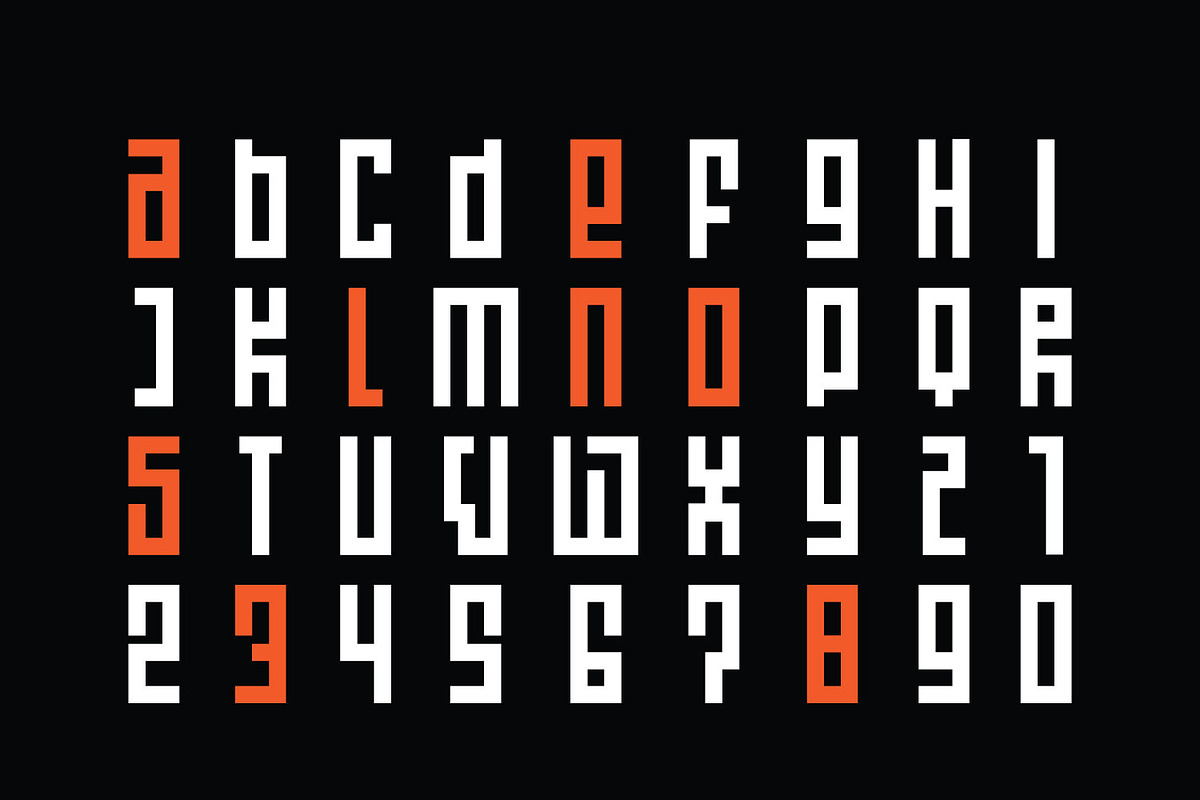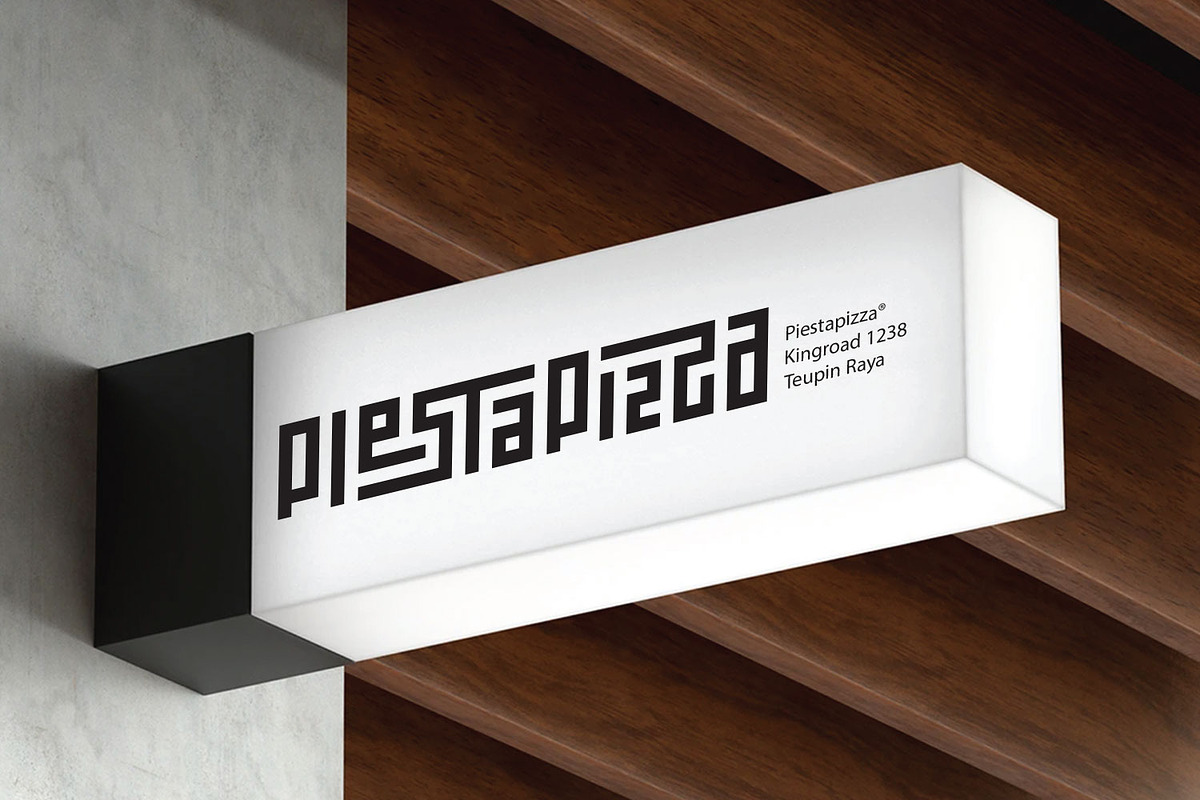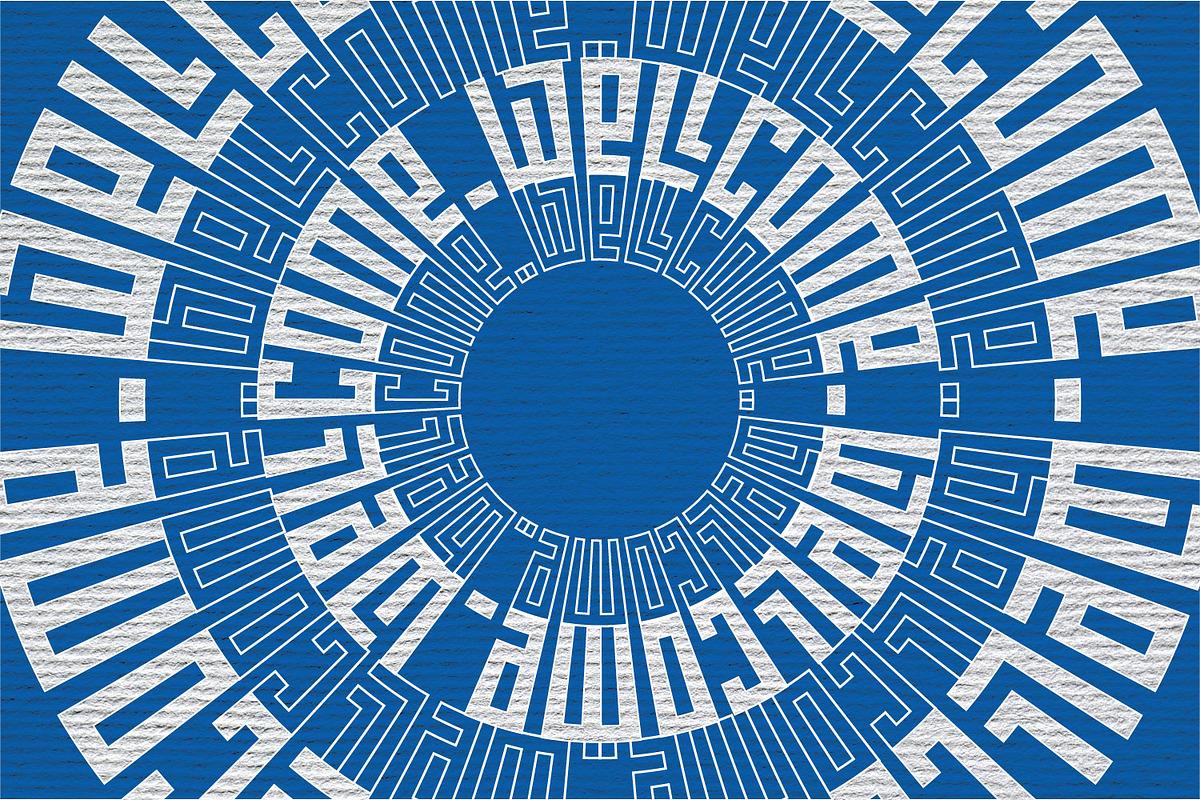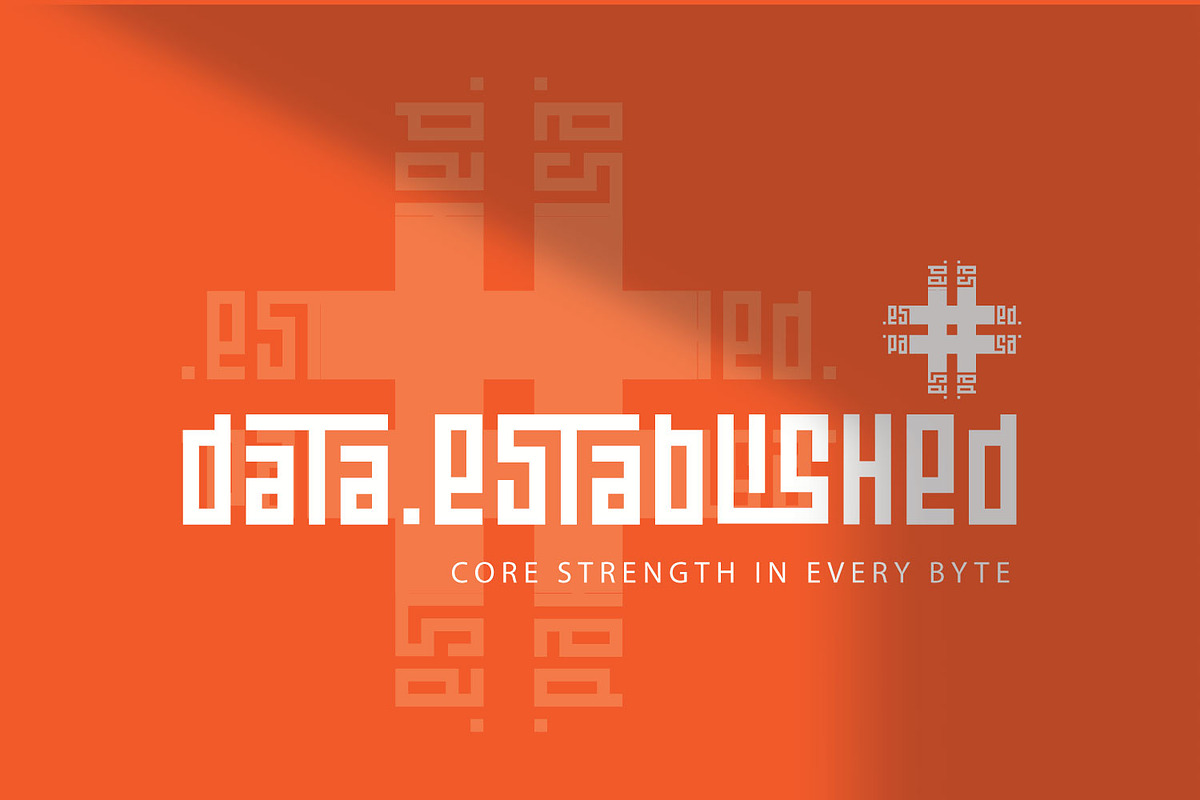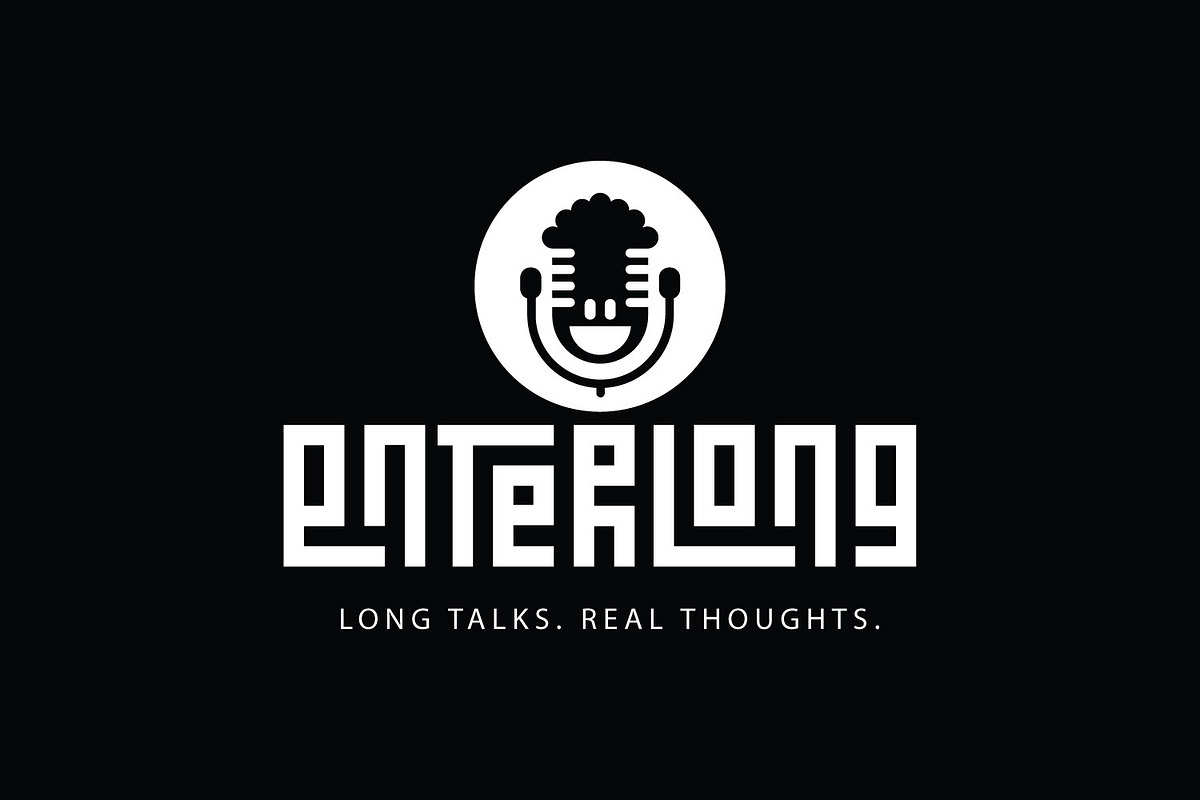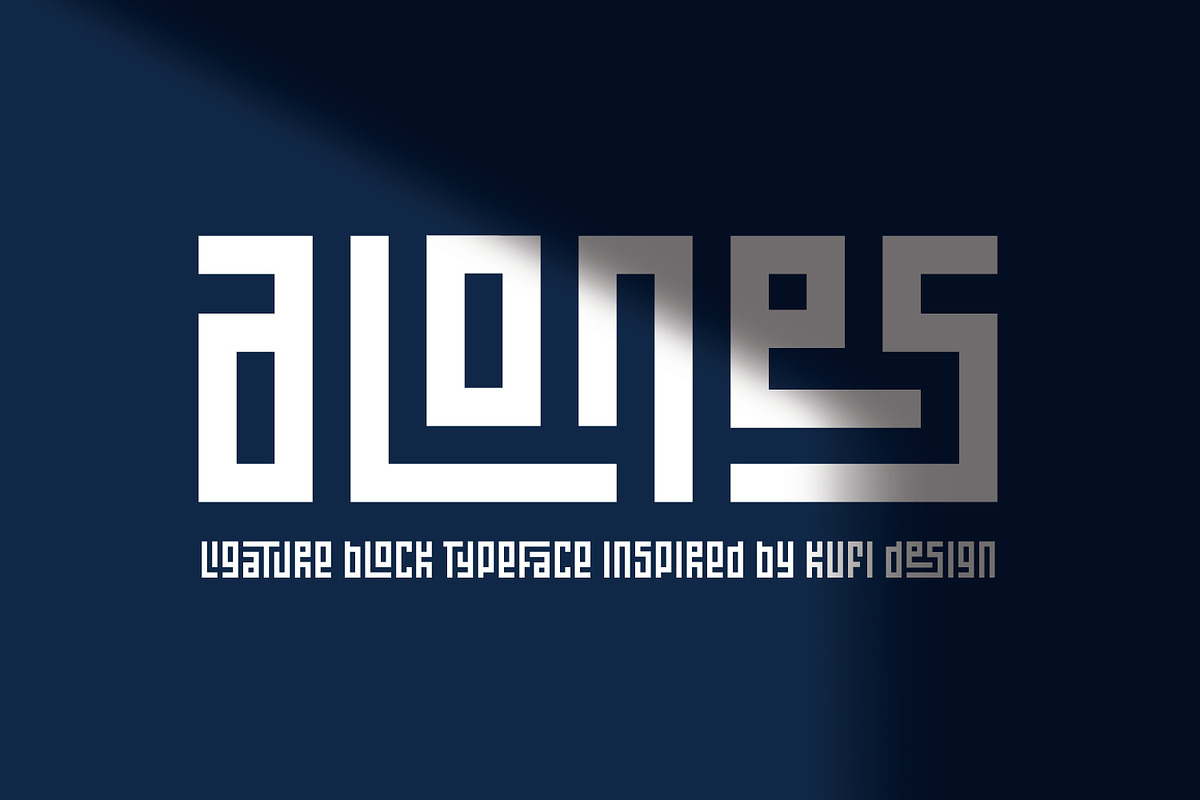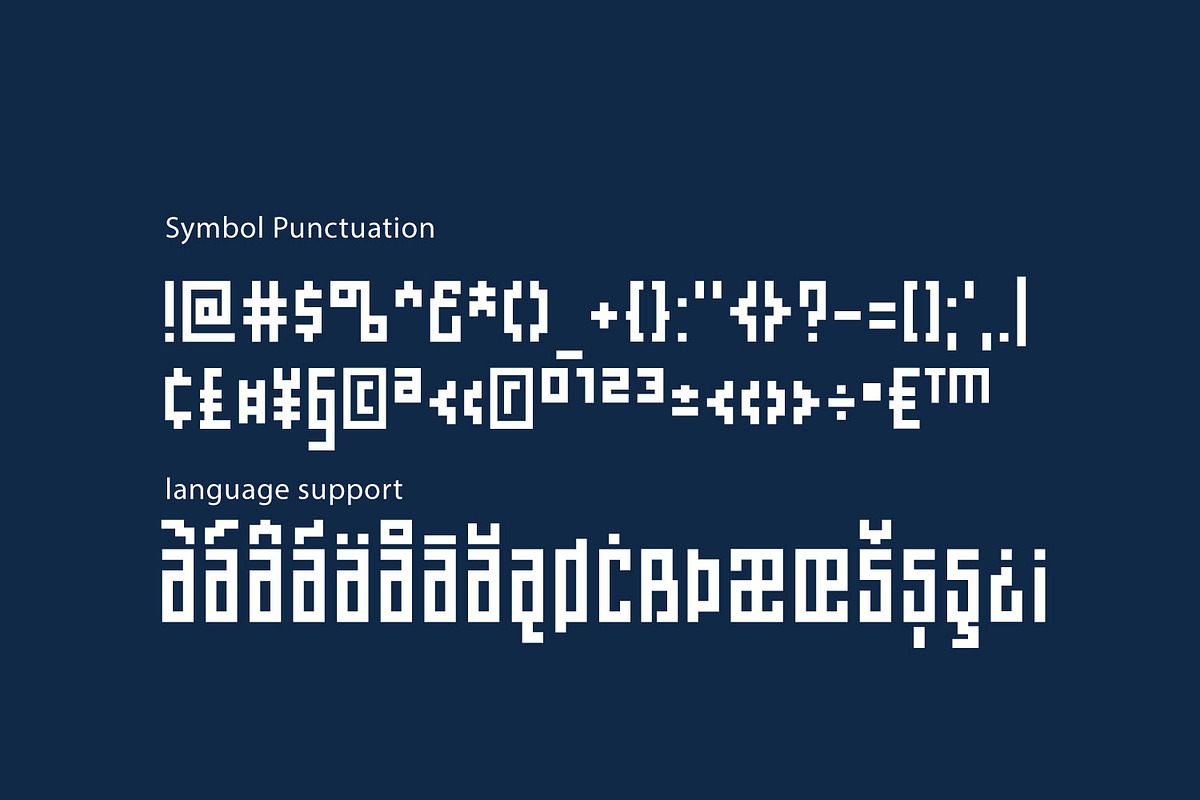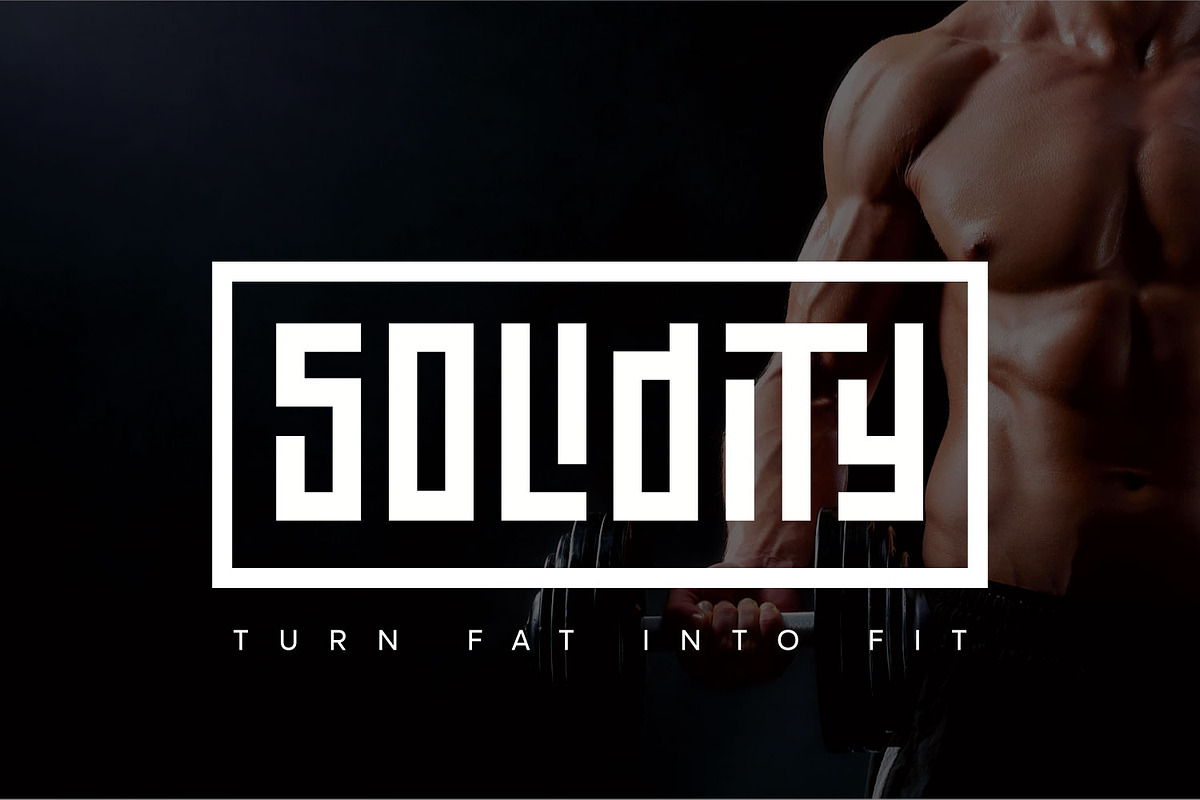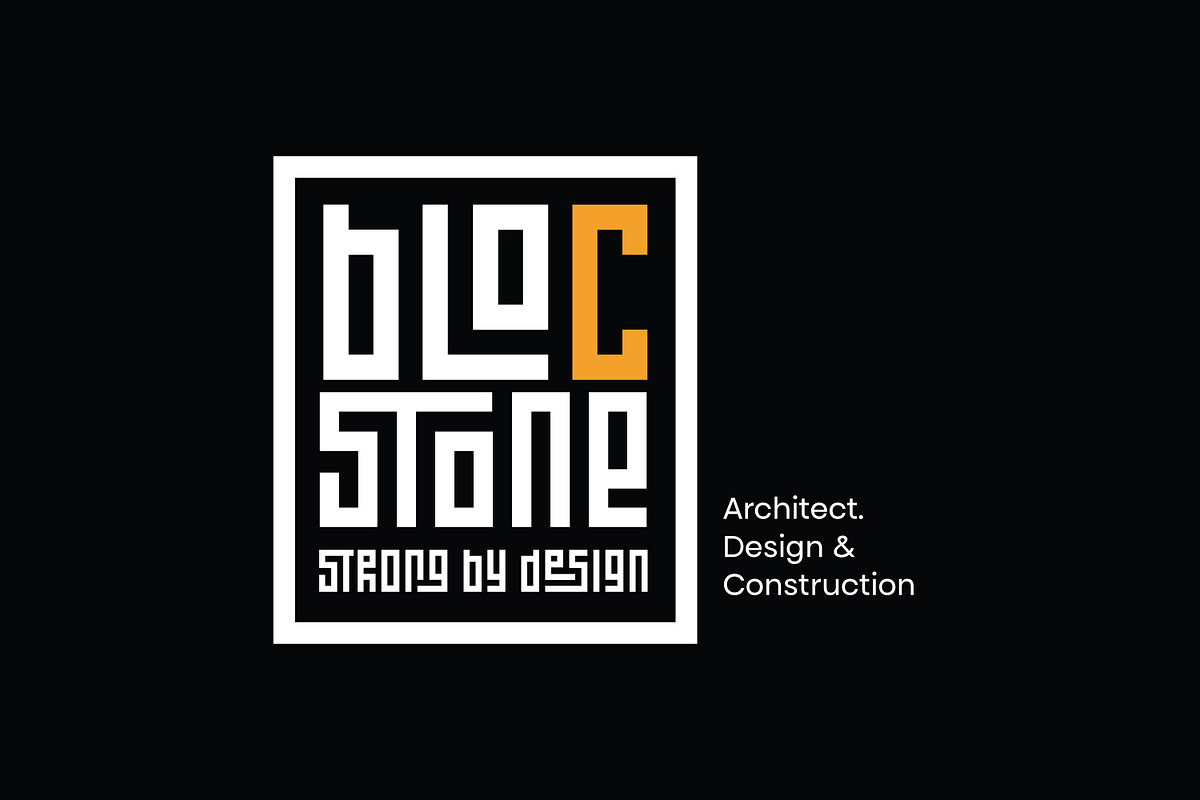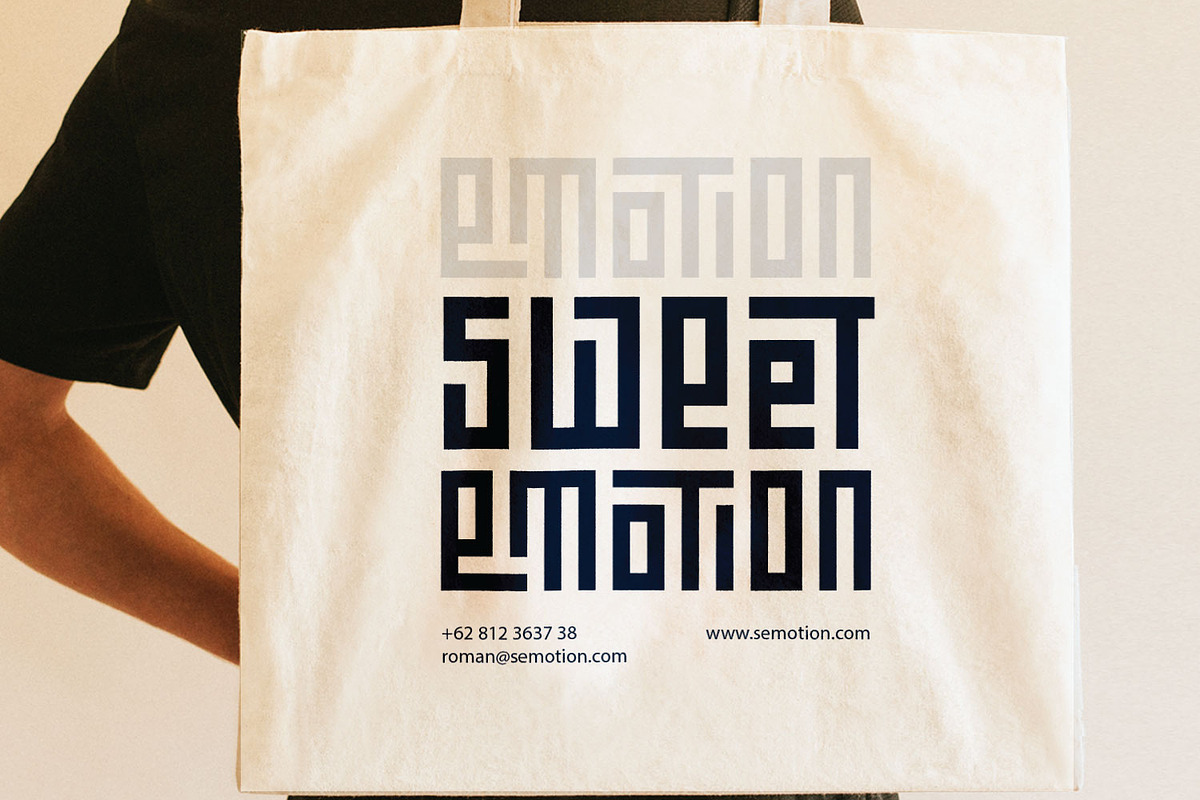
Alones
Alones is a refined display typeface inspired by the traditional Khufi style of Arabic calligraphy, reimagined in a modern Latin form. Built upon the harmony of vertical and horizontal strokes, it reflects the structural beauty and balance characteristic of Kufi letterforms. Its true charm lies in the lowercase set, featuring over 200 contextual ligatures that create seamless and unexpected letter combinations. Designed to bridge artistry and clarity, Alones offers two distinct expressions within one system. Use uppercase for the base form and lowercase for creative flow. A unique and versatile typeface that every designer deserves to have in their collection.